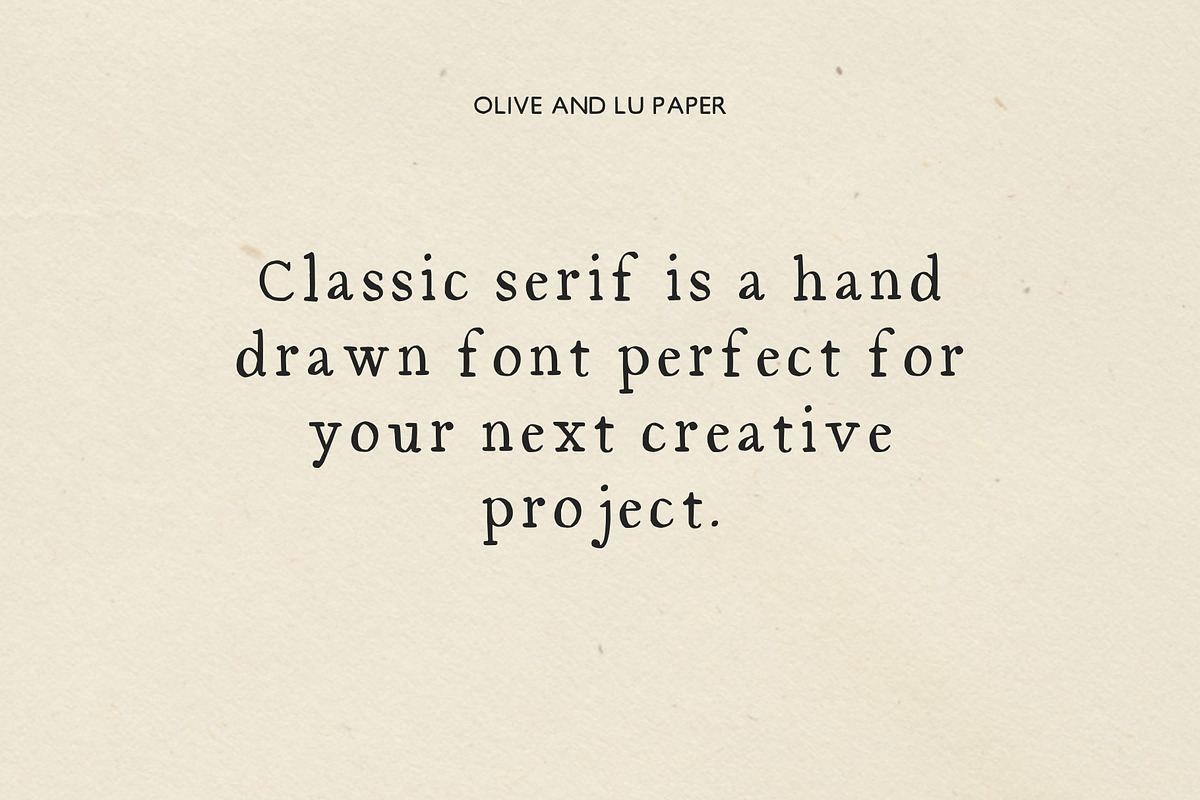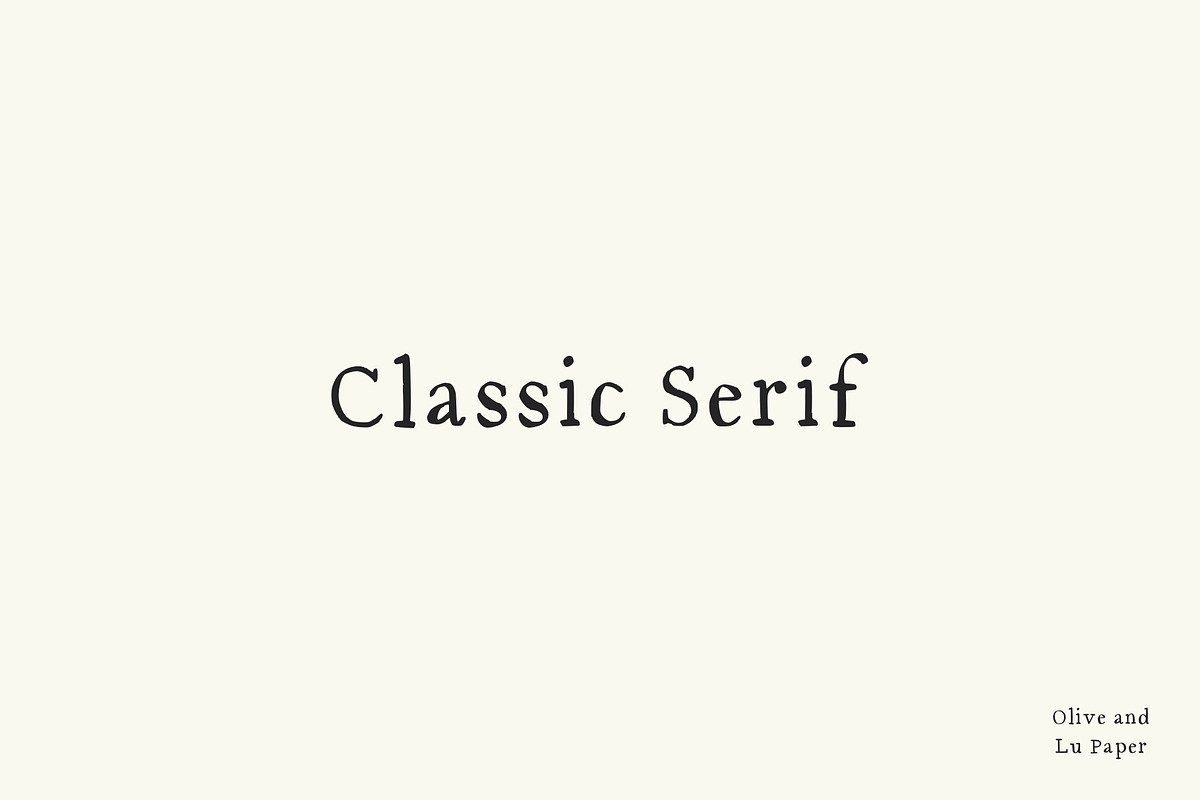
Classic Serif Font
This font is great for invites, social media graphics, tee shirts, websites, graphic design freelance projects and more!
This font has caps and no caps including a couple special characters.